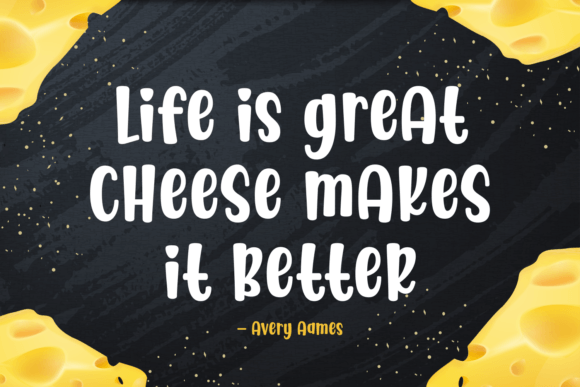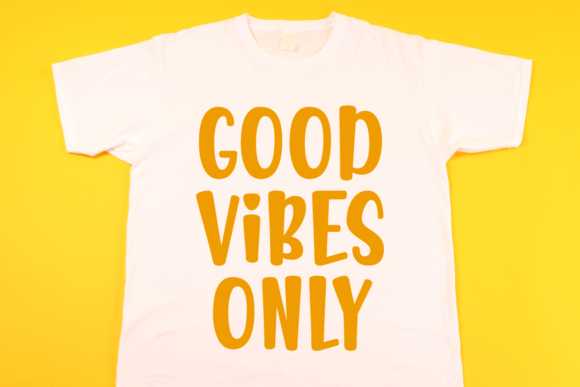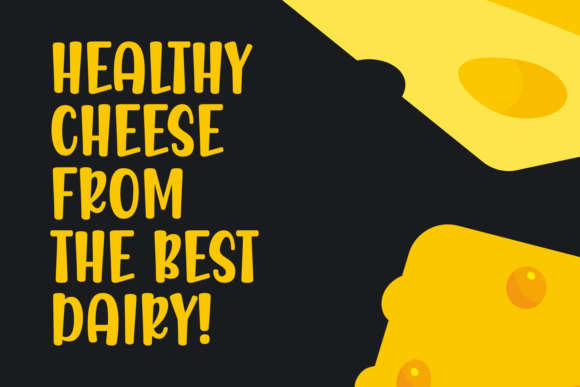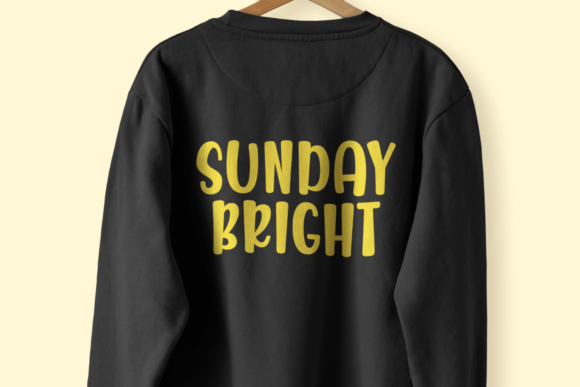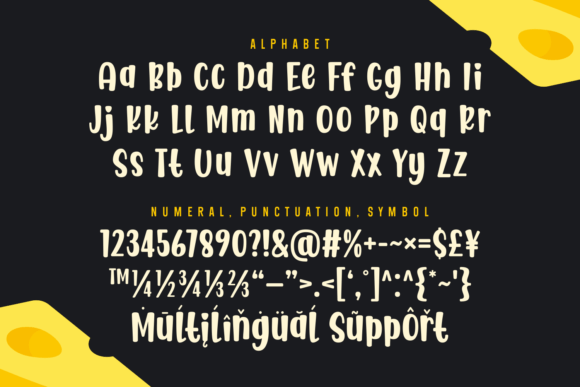
The Perfect Sprinkle of Creativity: Introducing Cheese Sprinkle Font
Have you ever found yourself stuck in a design rut, searching for that one special something to bring your project to life? Maybe you’ve stared at a blank page for hours, trying to conjure up the perfect idea, only to have it slip through your fingers like sand. If you’ve been there, you know how frustrating it can be.
Enter the Cheese Sprinkle Font, a playful handwritten font that’s sure to add a dash of magic to your next design project. With its friendly touch and whimsical feel, this font is perfect for everything from branding and logo design to social media graphics and children’s book illustrations. Whether you’re a seasoned designer or just starting out, the Cheese Sprinkle Font is a valuable addition to your toolkit.
So why is the Cheese Sprinkle Font so special? For one, it’s incredibly versatile – use it to create a whimsical logo or add a sprinkle of fun to your social media posts. With its unique, handwritten style, you’ll be able to add a touch of personality to any project, making it truly stand out from the crowd.
Cheese Sprinkle Font Key Features
- Unique Characteristics: Unique, playful, and whimsical design with a sprinkle of cheese-themed elements
- Font Style: Sans-serif with a modern twist, perfect for headings, titles, and branding
Designer Review: Cheese Sprinkle Font
Overall, I think the Cheese Sprinkle Font has some great qualities, but it also has some limitations. Let’s dive in.
- The font’s playful and whimsical feel is perfect for designs that need a lighthearted touch.
- The varied sprinkle elements add a nice texture and visual interest to the font.
- The font is easy to read, even at smaller sizes, which is great for body text or headlines.
- The font’s design may not be suitable for formal or professional designs, as it can come across as too childish or silly.
- The sprinkle elements can sometimes clash with the surrounding design, making it difficult to achieve a cohesive look.
- The font lacks consistency in terms of line spacing and kerning, which can make it look a bit sloppy at times.
Overall, I think the Cheese Sprinkle Font is a great choice for designs that need a fun and playful touch. However, it may not be the best fit for more formal or professional projects. With some careful design considerations, it can be a great addition to your font collection.
Cheese Sprinkle Font: A Practical Application Guide
Tips for Getting the Most Out of the Cheese Sprinkle Font
1. Use the font for whimsical and playful designs.
2. Pair the font with bold and bright colors for a fun and eye-catching effect.
3. Experiment with different font sizes and combinations to create unique and interesting layouts.
1. Party invitations and decorations.
2. Social media graphics and posts.
3. Children’s books and educational materials.
Alternatives to “Cheese Sprinkle Font” for Designers
Great Vibes Font is a beautiful, handwritten script font that is perfect for creating a warm and inviting atmosphere. It is ideal for use in wedding invitations, event branding, and other creative projects where a touch of elegance is required. Compared to Cheese Sprinkle Font, Great Vibes Font has a more refined and sophisticated look, making it suitable for a wider range of applications.
Alex Brush Font is a elegant, handwritten font that is perfect for creating a sense of luxury and sophistication. It is ideal for use in high-end branding, packaging, and advertising projects where a touch of elegance is required. Compared to Cheese Sprinkle Font, Alex Brush Font has a more polished and refined look, making it suitable for use in a wider range of industries.
Q: Is the Cheese Sprinkle Font suitable for use in digital applications?